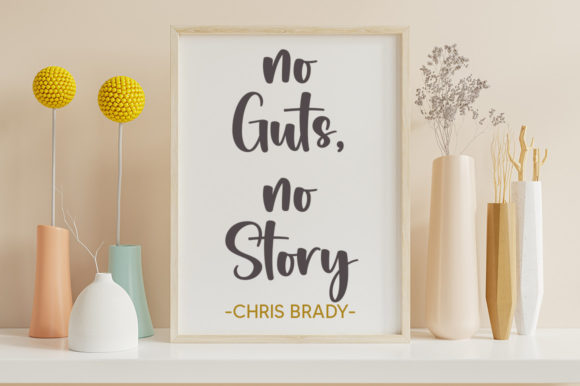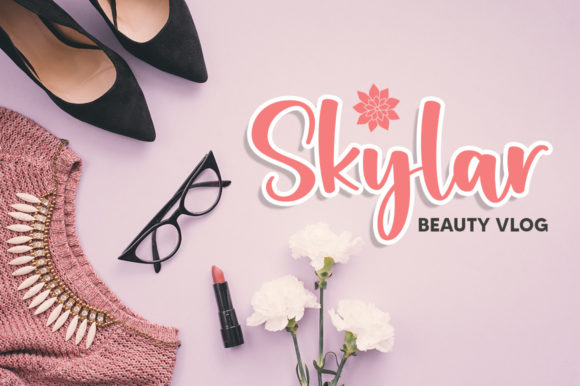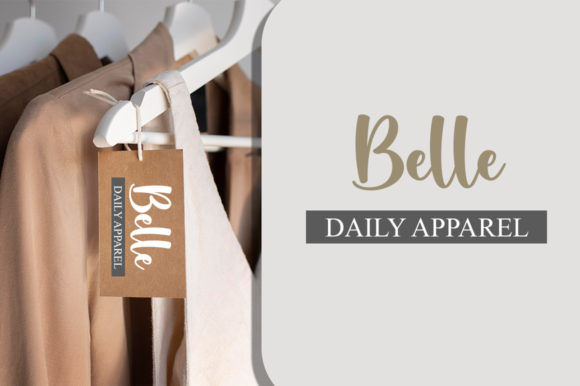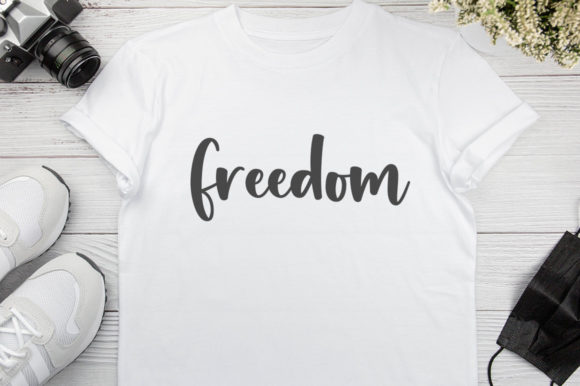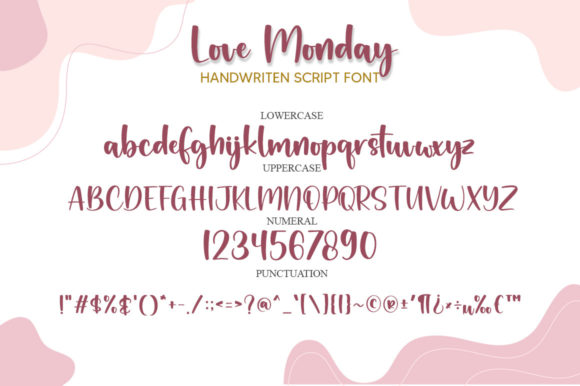
Introduction to Love Monday Font
Love Monday is a relaxed and trendy handwritten font.
It has beautiful and well-balanced characters and as a result, it matches a wide pool of designs Add it to your most creative ideas, and notice how it makes them come alive.